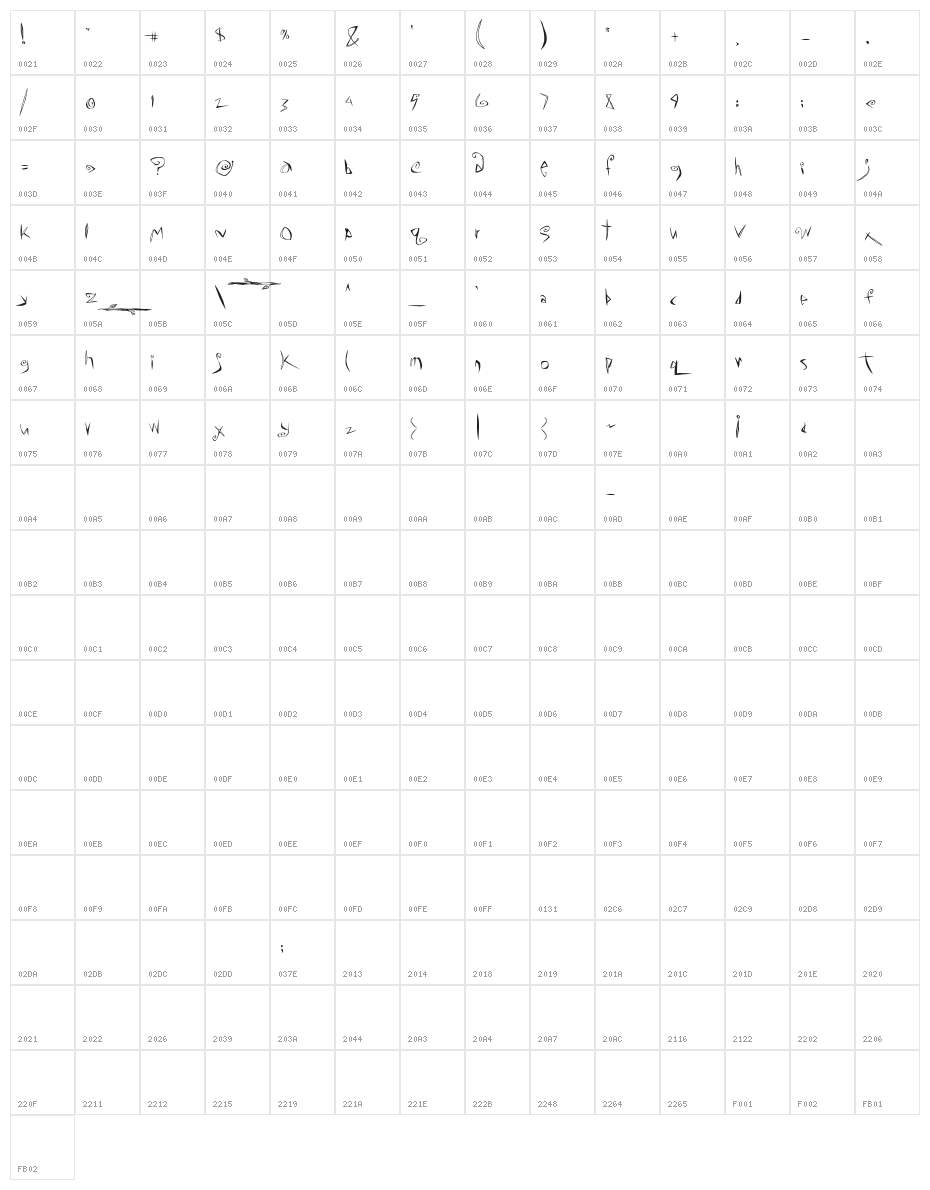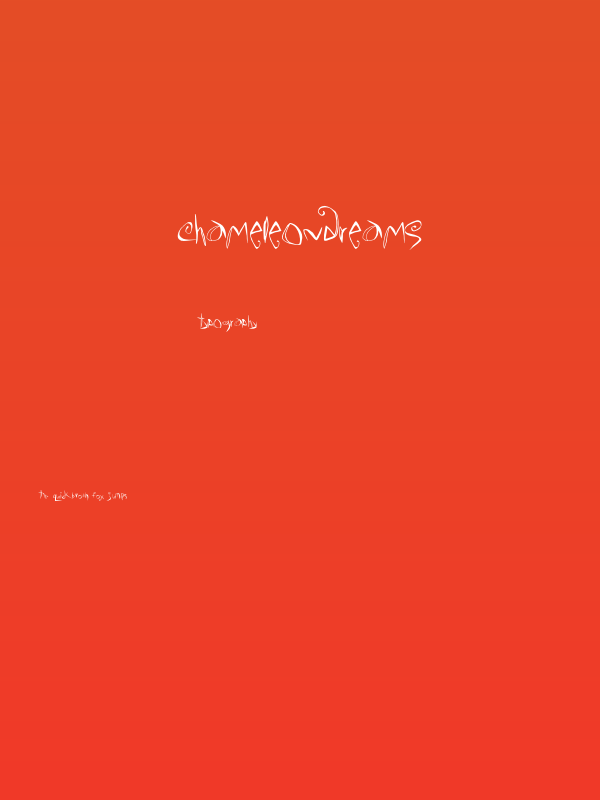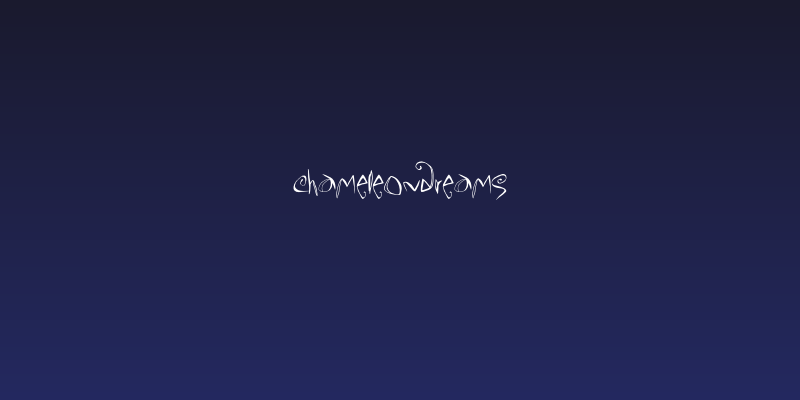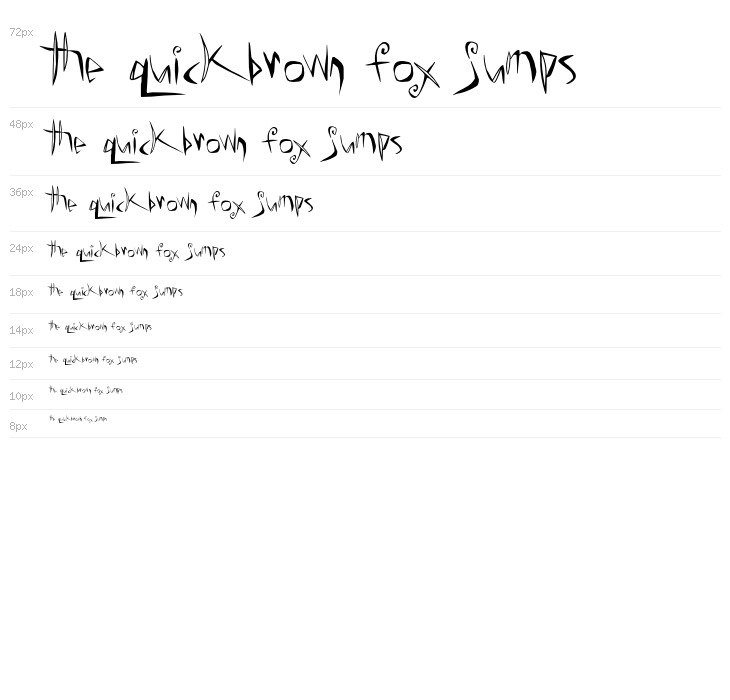
ChaMeLEonDrEamS Font
ChaMeLEonDrEamS Description
This font features a whimsical and artistic style, characterized by its playful and exaggerated letterforms. The strokes are varied, with some letters having elongated and curved lines, while others are more angular. This creates a dynamic and energetic appearance. The font has a hand-drawn quality, giving it a unique and personalized feel. The uppercase and lowercase letters maintain a consistent style, with a slight variation in size and shape that adds to its charm. Numbers and special characters follow the same artistic theme, ensuring a cohesive look across all elements.
| Overall Style | Artistic, Whimsical |
| Proposed Projects | Ideal for creative projects such as children's book illustrations, playful branding, artistic posters, and unique invitations. |